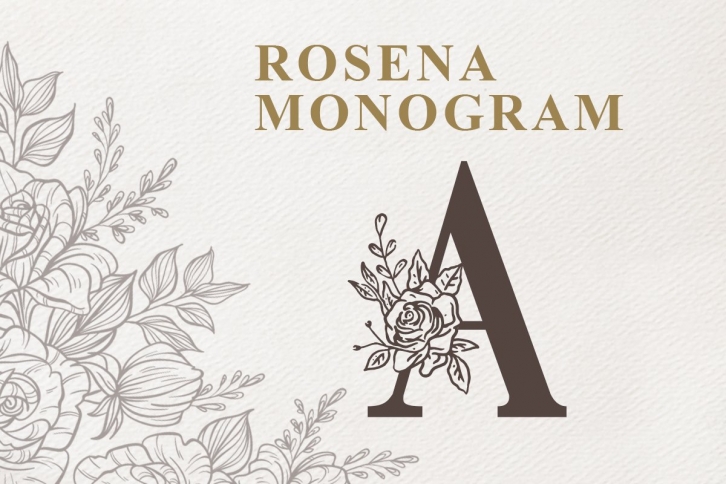
Rosena Monogram is a trendy and unique font with an authentic style. It was designed by Typefar and it's a great choice for creative people who need such a font. It was released on March 20, 2020 and the file size is 2.24 MB. Rosena Monogram will add an organic vibe to any design idea!